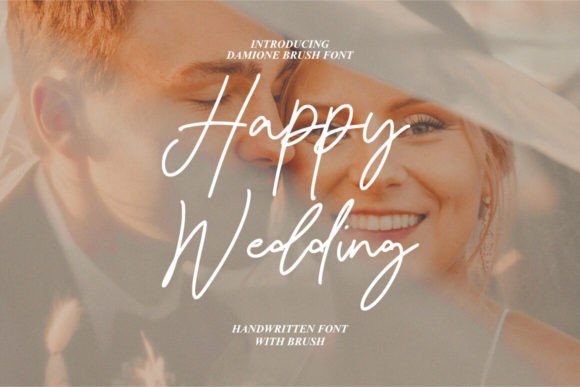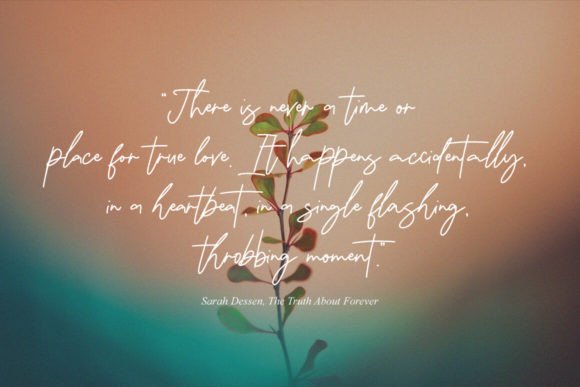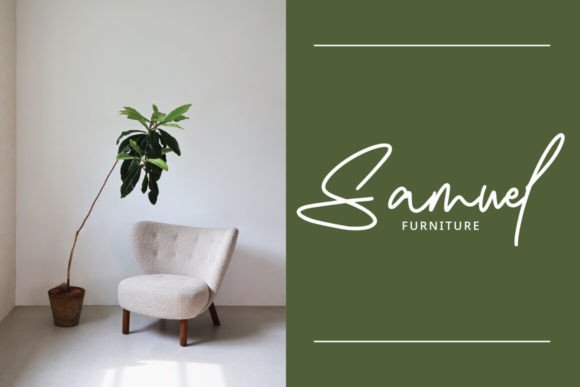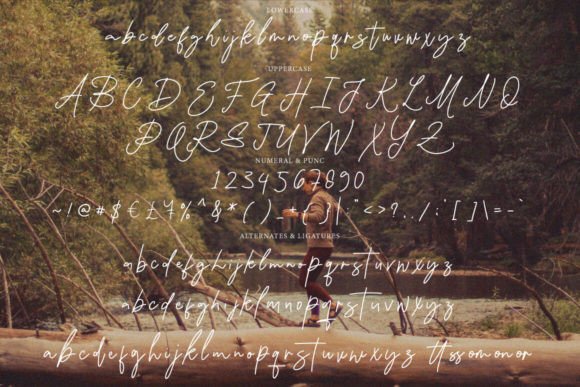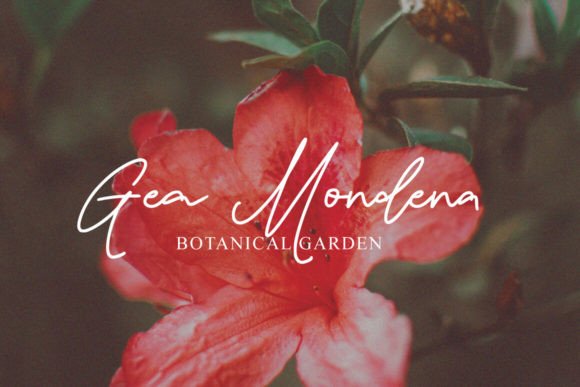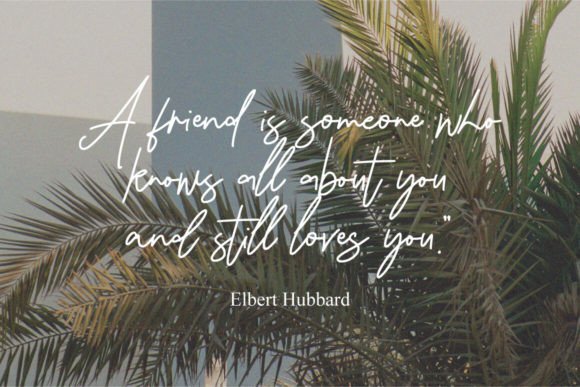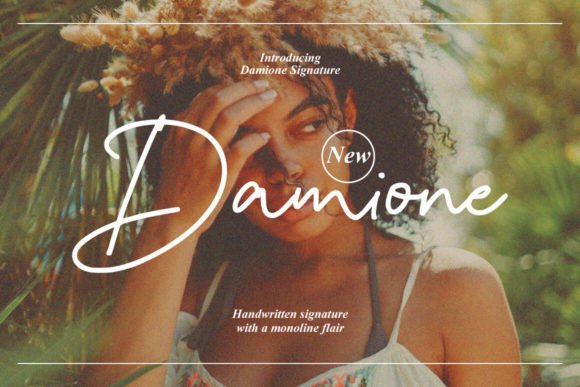
Introducing Damione Font: The Perfect Handmade Signature Style for Your Designs
Are you looking for a unique and elegant font to elevate your designs? Look no further than Damione Font, a beautiful handmade signature style font that is perfect for creating stunning invitations, greeting cards, branding materials, business cards, quotes, posters, and more. With its decorative characters and dancing baseline, Damione Font is sure to add a touch of sophistication and elegance to any design.
What Makes Damione Font Special?
Damione Font is a one-of-a-kind font that boasts a range of features that set it apart from other fonts. Here are just a few of the things that make Damione Font special:
- Handmade Signature Style: Damione Font has a unique, handmade signature style that gives it a personal and elegant feel.
- Decorative Characters: The font features decorative characters that add an extra touch of beauty to any design.
- Dancing Baseline: The dancing baseline of Damione Font gives it a sense of movement and energy, making it perfect for designs that need to stand out.
- 250+ Glyphs: Damione Font comes with over 250 glyphs, including alternative characters, swashes, and ligatures.
Open Type Features
Damione Font features a range of Open Type features that allow designers to get the most out of the font. These features include:
- Swash: Add a touch of elegance to your designs with the swash feature.
- Stylistic Sets: Create unique and interesting combinations of characters with the stylistic sets feature.
- Stylistic Alternates: Add some extra flair to your designs with the stylistic alternates feature.
- Ligature: Create beautiful connections between characters with the ligature feature.
PUA Unicode: Making it Easy to Access Alternate Characters
Damione Font has been given PUA unicode, which means that all the alternate characters can be easily accessed in full by crafters and designers. This makes it easy to get the most out of the font and create unique and interesting designs.
Damione Font is perfect for designers and crafters who are looking for a unique and elegant font to add to their collection. Whether you’re creating invitations, greeting cards, branding materials, or posters, Damione Font is sure to impress.
With its handmade signature style, decorative characters, and dancing baseline, Damione Font is a versatile font that can be used in a range of designs. And with its Open Type features and PUA unicode, it’s easy to get the most out of the font and create stunning designs.
In conclusion, Damione Font is a beautiful and elegant font that is perfect for designers and crafters who are looking for a unique and handmade signature style. With its decorative characters, dancing baseline, and Open Type features, Damione Font is sure to add a touch of sophistication and elegance to any design.